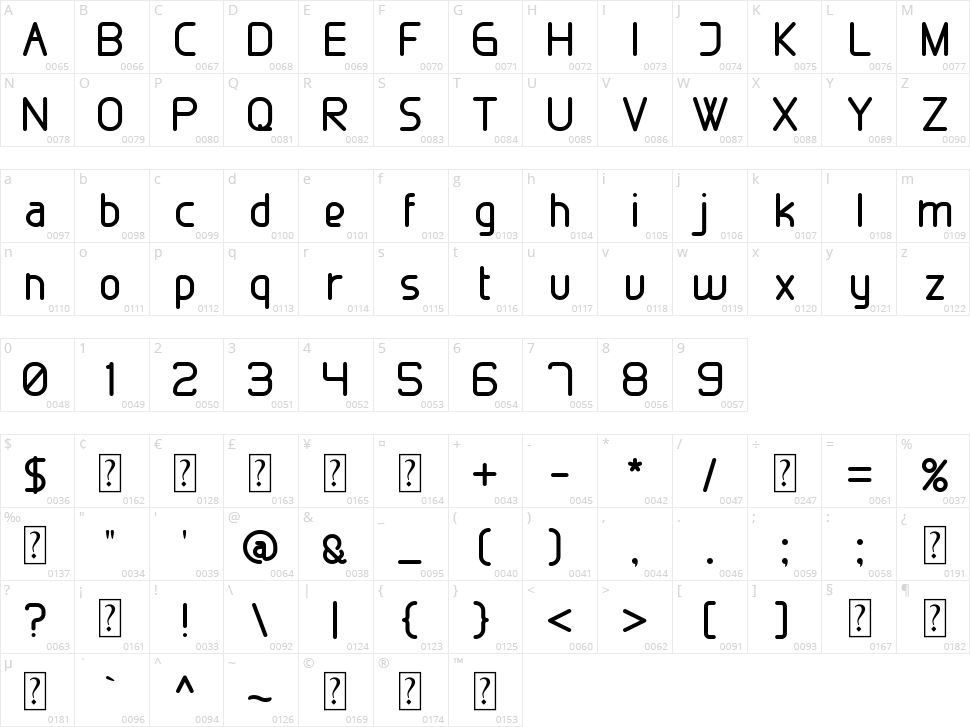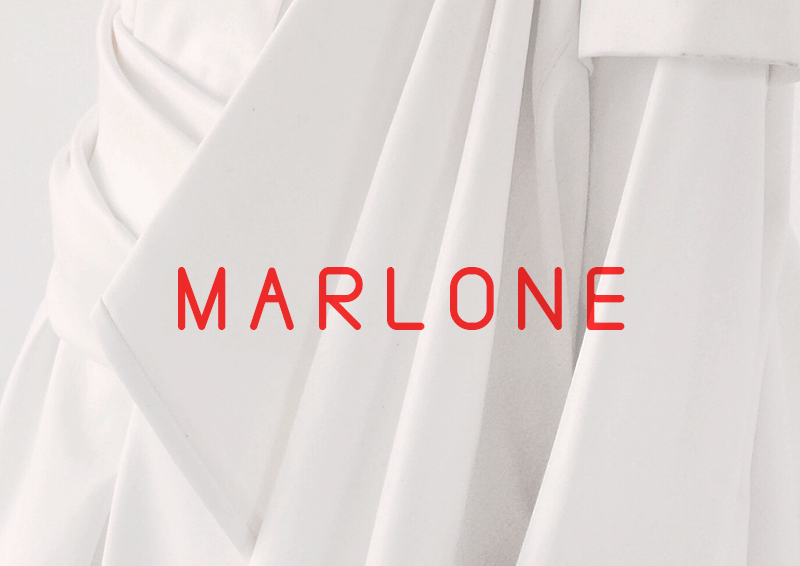
Marlone
Note of the author This is Marlone round typefaces, minimalist and friendly. It's perfect to use Stationery, Social Media Posts, Advertisements, Product Packaging, Product Designs, Label, Photography, Watermark, Special Events, Logos, Quotes, Badges, Labels, Blog Headlines or simply use it in your next design project.
Designer Name: Rico Rifa'i